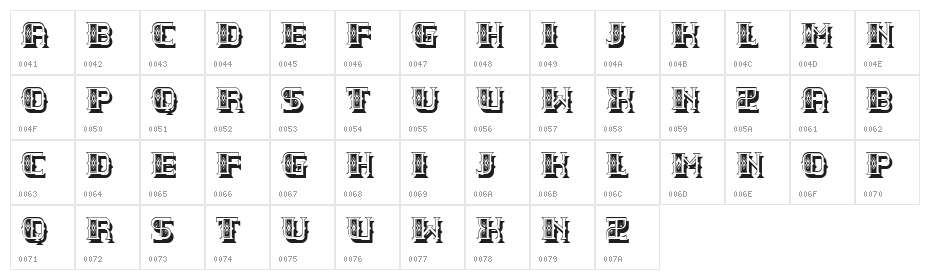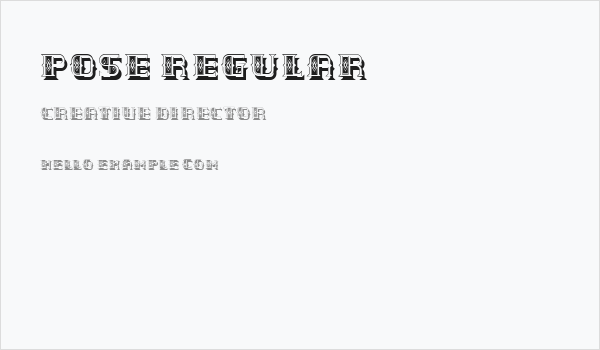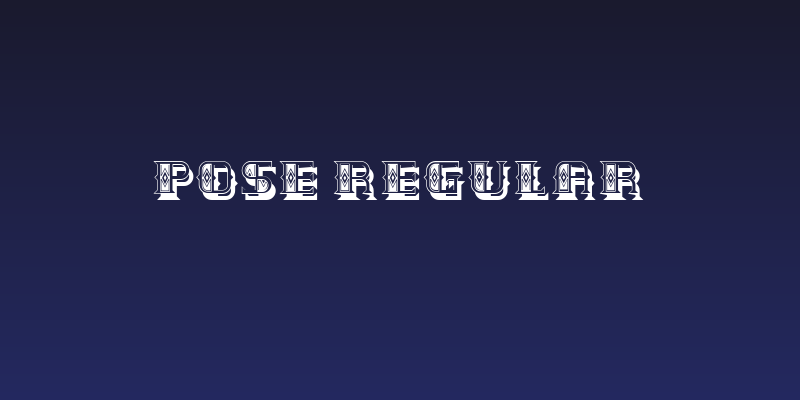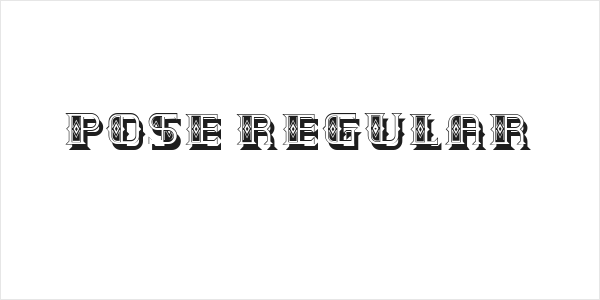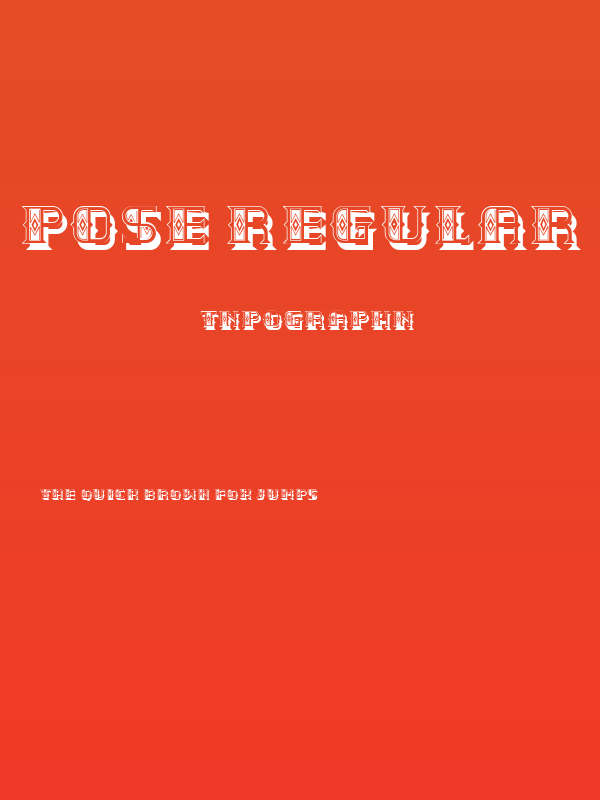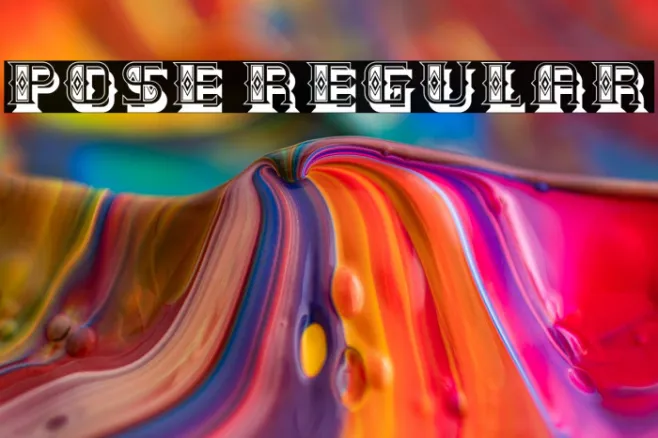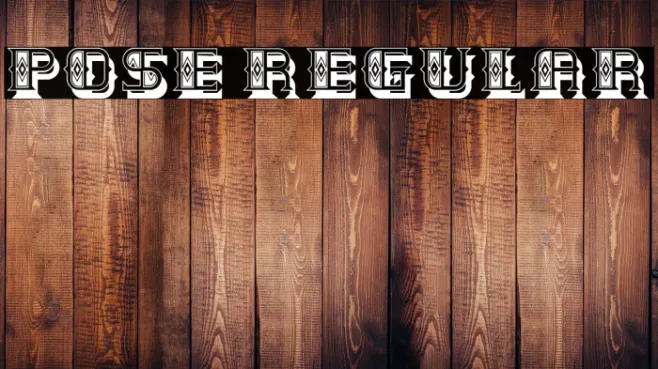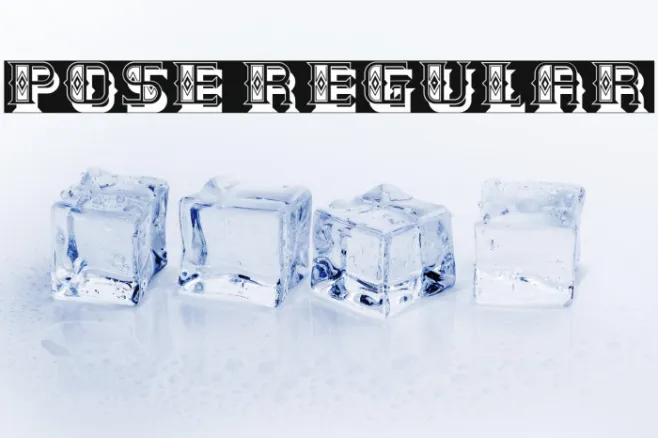
Pose Regular Font
Pose Regular Description
This font exhibits a bold and decorative style, characterized by intricate patterns within each letterform. The design features a three-dimensional effect with shadowing that adds depth and complexity. Each character is adorned with ornate details, giving it a unique and artistic appearance. The uppercase letters are particularly striking, with a strong presence that commands attention. The overall aesthetic is reminiscent of vintage or retro styles, making it suitable for projects that require a touch of elegance and sophistication. The font's distinctiveness lies in its elaborate design, which combines traditional elements with a modern twist.
| Proposed Projects | Ideal for branding, poster design, album covers, and any project seeking a vintage or artistic flair. |